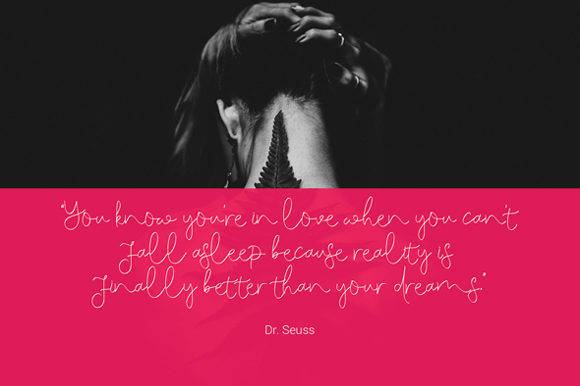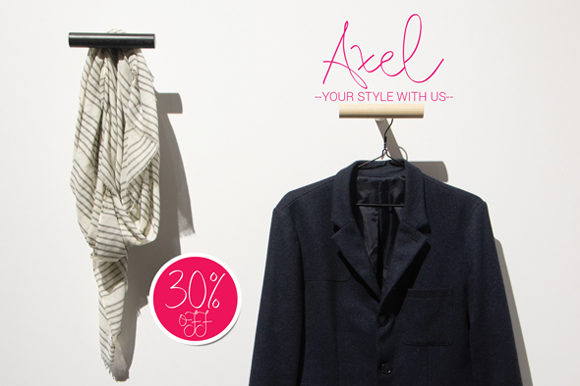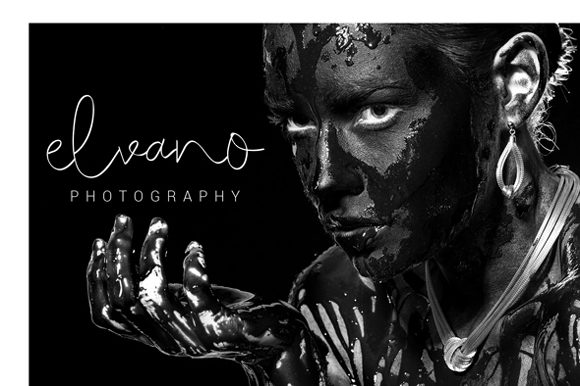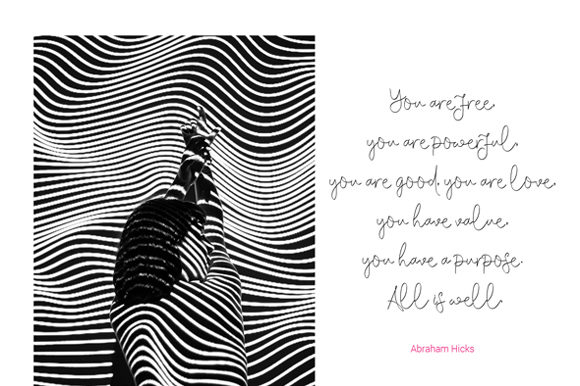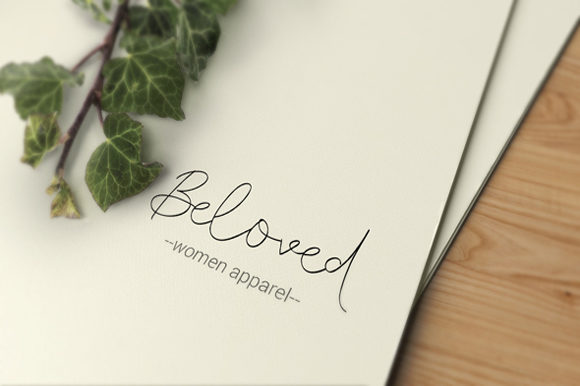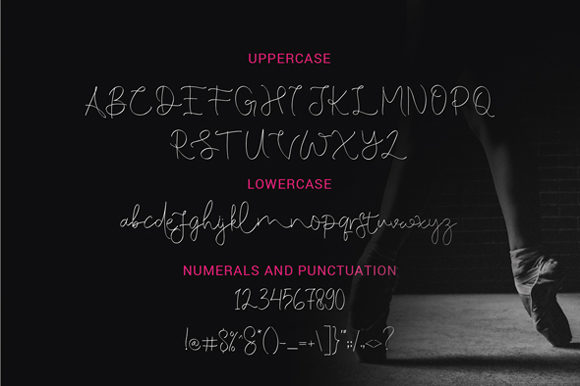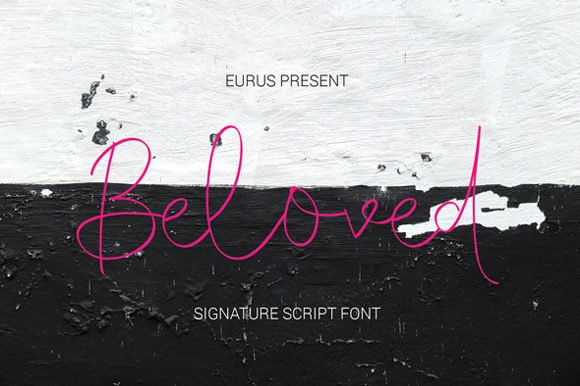
Where Design Meets Emotion: The Power of the Beloved Font
Have you ever sat in front of a blank canvas, staring at a sea of possibilities, and suddenly, the perfect idea strikes? It’s a moment of pure creative bliss – and it’s exactly this feeling that the Beloved Font aims to evoke in your designs. With its elegant signature script, this beautiful font is designed to add a touch of warmth and personality to your work.
Whether you’re crafting a logo, packaging design, or branding materials, the Beloved Font is the perfect tool to help you convey your message with style and emotion. Its masterful design makes it a must-have for any designer looking to add a human touch to their work. And with its versatility, you can be sure that the Beloved Font will become a true favorite in your design arsenal.
Key Features of Beloved Font
- Font Family: Beloved Font is a unique, handwritten font that features a mix of elegant and cursive script styles.
- Character Set: The font includes a comprehensive set of characters, including uppercase and lowercase letters, numbers, punctuation marks, and special characters.
- Unique Characteristics: The font features a unique, hand-drawn feel, with subtle variations in letterforms and connections between letters, giving it a personal and emotional touch.
Beloved Font Review
As a designer, I was excited to dive into the “Beloved Font” and see what it had to offer. After a thorough examination, here are my thoughts.
- ✨ Unique Character Set: The Beloved Font features a distinct set of characters that add a touch of whimsy to any design. The script-style “g” and “y” are particularly charming.
- ✨ Smooth Kerning: The font’s kerning is well done, ensuring that characters line up neatly and don’t clash with each other.
- ✨ Versatile: Whether you’re designing a children’s book or a wedding invitation, the Beloved Font is a great choice due to its playful yet elegant feel.
- ⚠️ Limited Font Weight Options: While the font has a nice range of styles, the weight options are somewhat limited. A few more options would be nice for designs that require a lot of contrast.
- ⚠️ Not Suitable for Body Text: Due to its ornate nature, the Beloved Font isn’t the best choice for large blocks of text. It’s better suited for headings and titles.
The Beloved Font is a delightful addition to any designer’s toolkit. While it has some limitations, its unique character set and smooth kerning make it a great choice for designs that need a touch of personality. With a few tweaks, this font could be even more versatile and useful.
To get the most out of Beloved Font, use it in conjunction with other elegant and minimalist design elements.
Use Beloved Font for headings and titles to create a clear visual hierarchy.
Beloved Font is ideal for:
Brand logos and typography
Editorial and magazine layouts
Any design project that requires a touch of elegance and sophistication